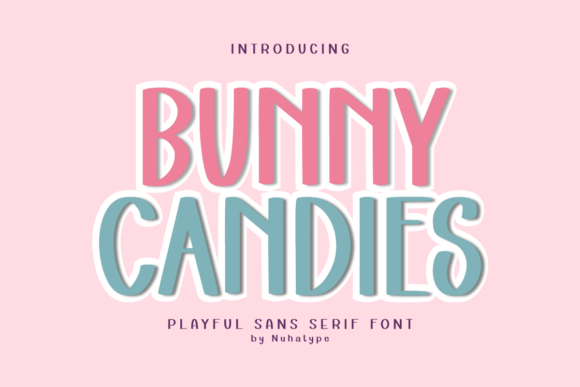
The Sweetest Font for Creatives: A Deep Dive into Bunny Candies
I’ll never forget the time I was working on a craft project for my kid’s school event, and I just couldn’t find the perfect font to match the playful vibe I was going for. The project was a set of colorful stickers and worksheets, and I wanted a font that was both fun and easy to read. That’s when I stumbled upon Bunny Candies, a cute sans serif handwriting font that instantly captured the essence of what I was looking for.
As I explored the font further, I realized that its soft, friendly, and natural look made it perfect not just for craft projects, but also for planners, stickers, kids’ worksheets, classroom printables, DIY designs, and so much more. In this article, I’ll share my experience with Bunny Candies, including what I love about it, some minor quirks, and a step-by-step guide on how to use it on various platforms.
An Honest Review of Bunny Candies
What I Love About Bunny Candies ✨
- ✅ Soft and Friendly Look: Bunny Candies has a warm, handcrafted feel that adds a personal touch to any project.
- ✅ Ease of Use: Its simple strokes and smooth curves make it easy to cut using Cricut and Silhouette, perfect for crafting moms who love adorable handwritten styles.
- ✅ Versatility: This font is perfect for quotes, greeting cards, kids’ labels, coloring pages, worksheets, bullet journals, scrapbooks, and playful graphic projects.
- ✅ Readability: Despite its playful nature, Bunny Candies remains clear and easy to read, making it suitable for a wide range of applications.
- ⚠️ Limited Formality: Given its playful nature, Bunny Candies might not be the best fit for projects requiring a formal or professional tone.
- ⚠️ Overuse: Using Bunny Candies excessively across a project might make it feel too playful or childish.
The Backstory of Bunny Candies
Bunny Candies was designed with the intention of capturing the innocence and playfulness of childhood. The designer aimed to create a font that felt both approachable and delightful, perfect for projects that needed a friendly nudge. Whether it’s for educational materials, DIY crafts, or simply adding a personal touch to digital designs, Bunny Candies brings a sense of warmth and handcrafted love.